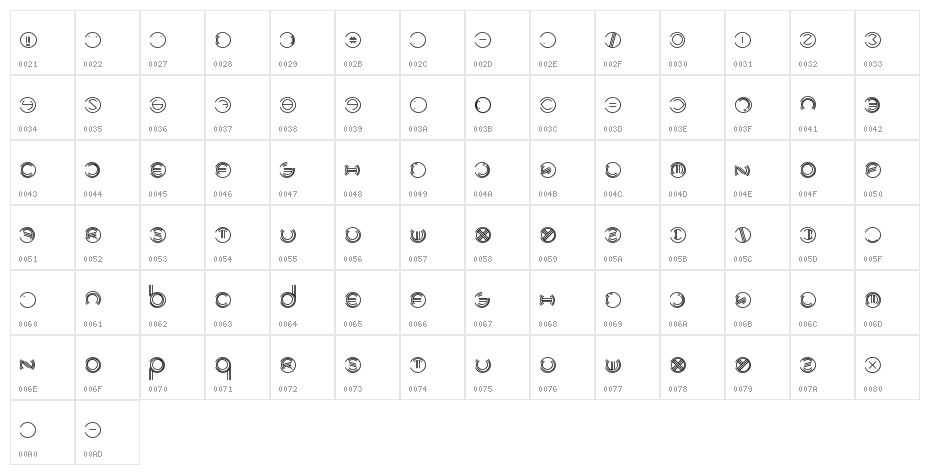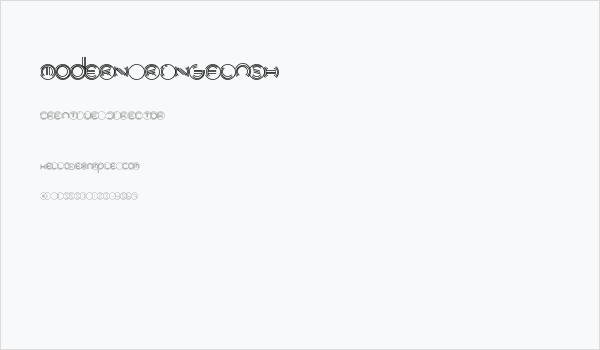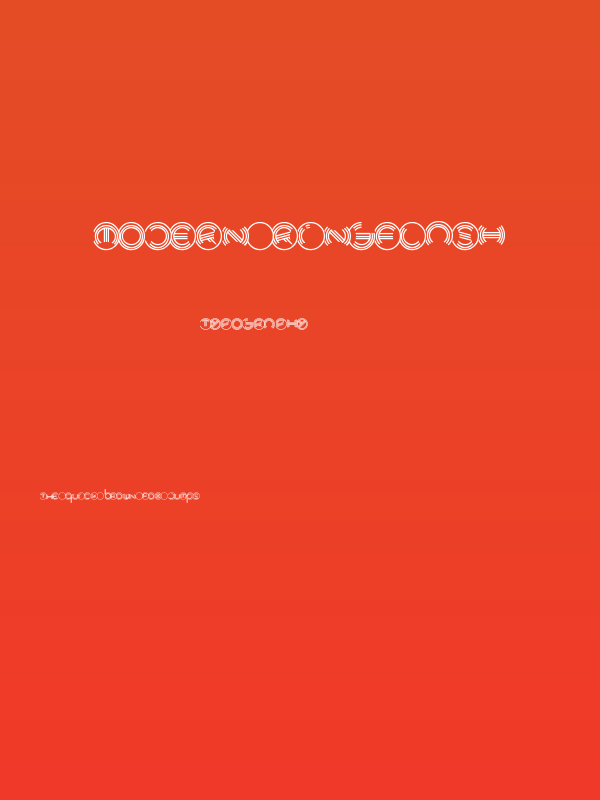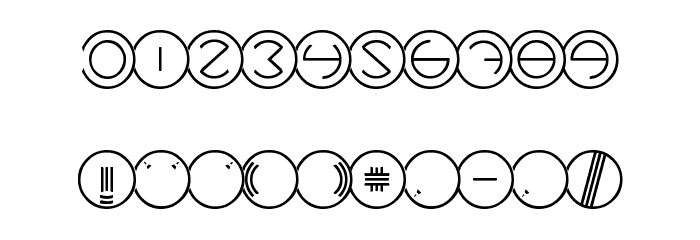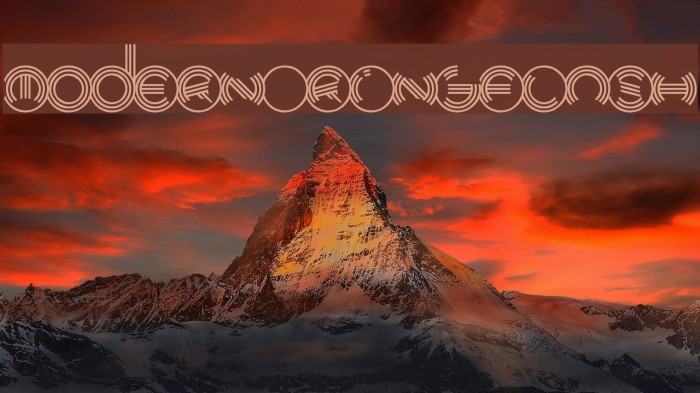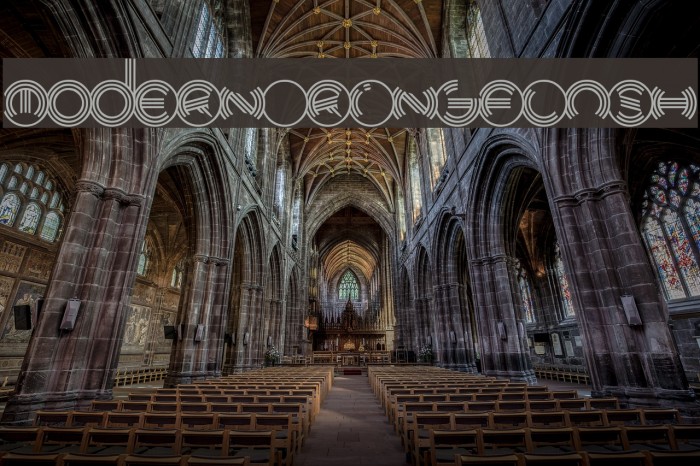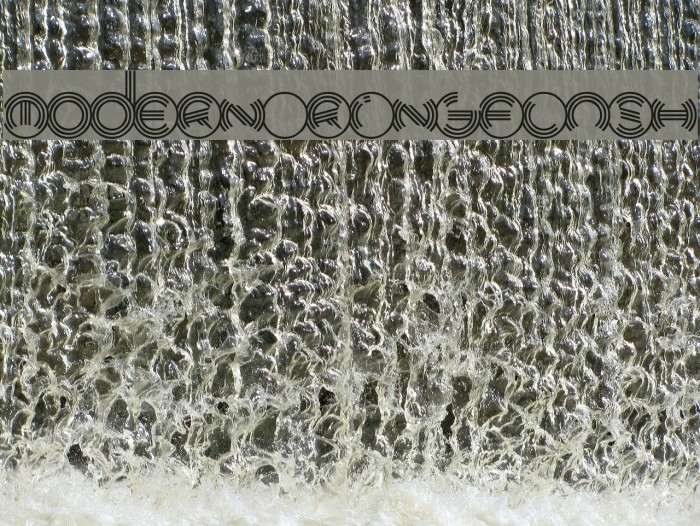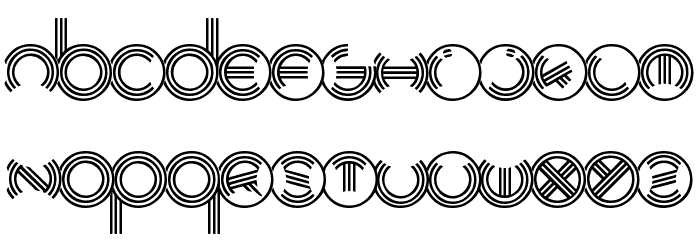
Modern Ringflash Font
Modern Ringflash Description
This font features a unique and modern design with a circular motif that encompasses each character. The letters are constructed with multiple concentric lines, creating a sense of depth and movement. The geometric style is consistent across uppercase, lowercase, and numerical characters, as well as special symbols. The font's distinct appearance makes it ideal for creative and bold design projects, where a futuristic or avant-garde aesthetic is desired. The consistent circular theme provides a cohesive look, while the intricate line work adds a layer of sophistication and intrigue.
| Use Case | Logos, Posters, Headlines |
| Proposed Projects | Ideal for branding, posters, album covers, and any project seeking a modern, artistic flair. |